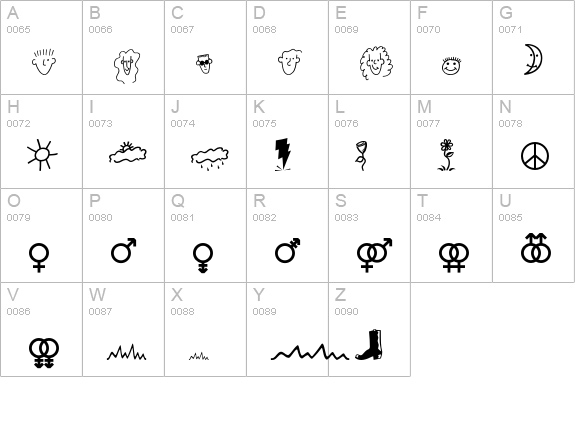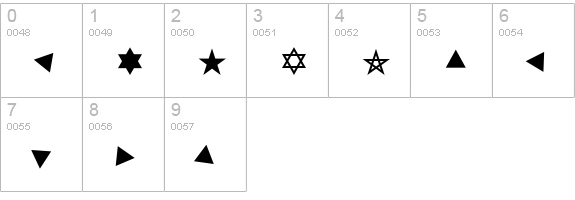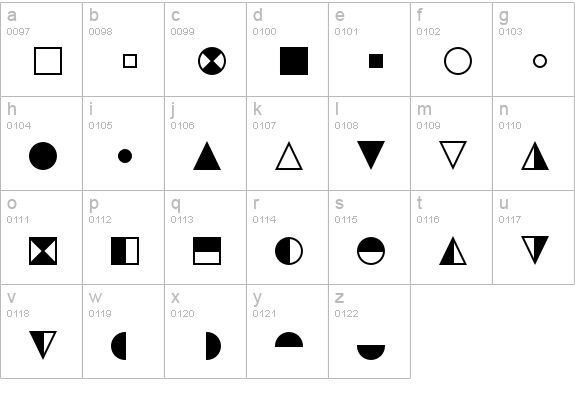
QuirksICG Font Details
QuirksICG font is a stunning display typeface that is sure to capture the attention of any viewer. Its unique and playful design features quirky letterforms with a touch of elegance, making it perfect for a wide range of creative projects. This font's free-spirited charm is evident in every curve and stroke, adding a delightful whimsical flair to any text. Whether you're designing a logo, creating eye-catching headlines, or crafting invitations, QuirksICG font will bring a sense of joy and originality to your work. The versatility of QuirksICG font is truly remarkable. Its bold and distinctive characters make a bold statement, while its softer and more delicate variations add a touch of sophistication. This font is a true chameleon, seamlessly adapting to any design aesthetic, from modern and minimalistic to vintage and retro. But what makes QuirksICG font even more exceptional is that it is freely available to download at FontsMarket.com. This means that you can bring this extraordinary font into your creative endeavors without any cost or restrictions. With just a few clicks, you can access the full potential of QuirksICG font and unleash your creativity like never before. So, if you're looking for a font that will make your designs stand out from the crowd, look no further than QuirksICG font. Its captivating charm, versatility, and the fact that it is freely available for download at FontsMarket.com make it a must-have for any designer, artist, or enthusiast. Embrace the quirkiness and let QuirksICG font elevate your creations to new heights of visual excellence.